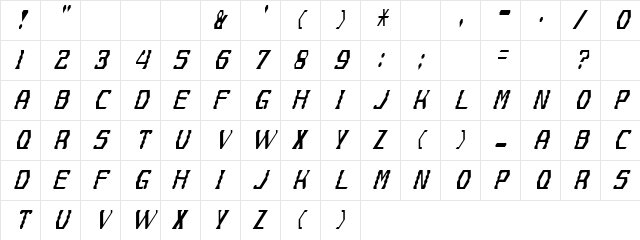
Gyrussian Regular
Design Context for Gyrussian Typeface
Gyrussian is a composed and adaptable typeface that performs quietly and consistently across a wide range of design contexts.
Pro Tip: Use Gyrussian in both headline and body roles to test its range before committing to a single application.